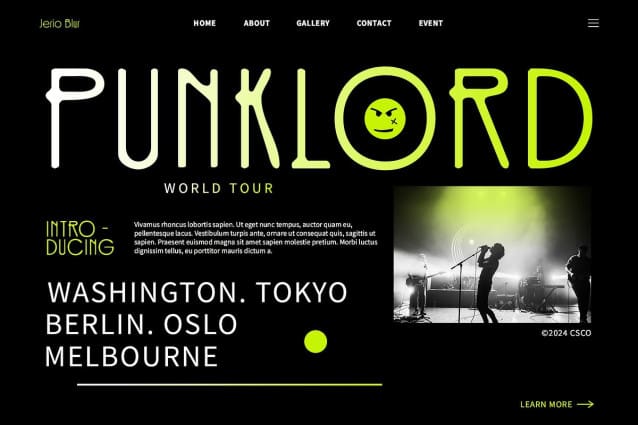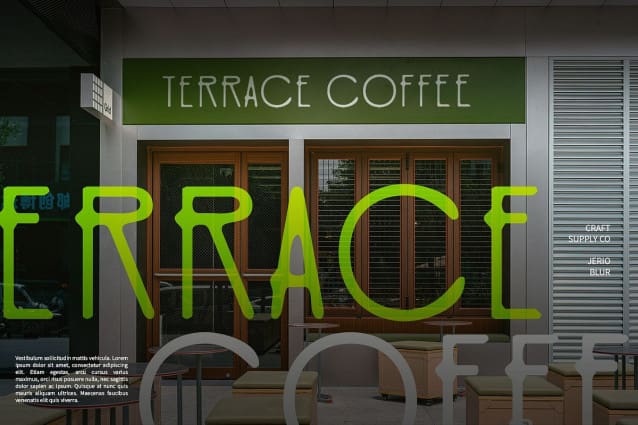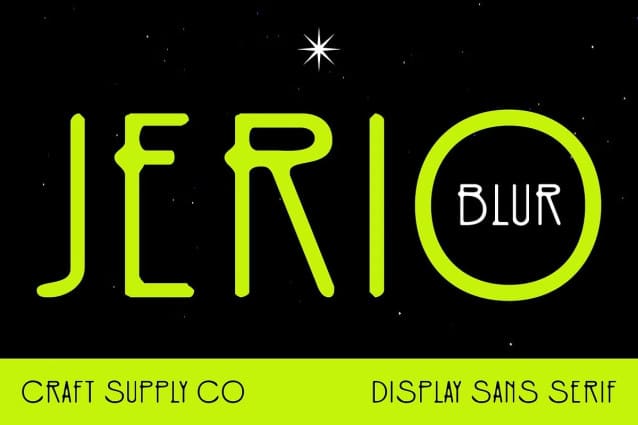
Jerio Blur Font
Jerio Blur Font is a sans serif font with a modern style and a blur effect, perfect for display purposes. Its clean lines and blurred elements create a unique and contemporary look, ideal for posters, branding, and other projects that require a bold statement.
With its sleek design and blurred details, Jerio Blur offers a fresh take on traditional sans serif fonts. The modern style and blur effect create a captivating and dynamic look, perfect for designs that demand attention and convey a sense of modernity and innovation.
Whether you’re designing a website or creating a poster, Jerio Blur is sure to make an impression. Its blur effect and modern style make it perfect for displays that need a touch of contemporary flair.
Despite its distinctive appearance, Jerio Blur is versatile and easy to use. The font works well in both large and small sizes, making it suitable for a variety of applications, from headlines and banners to body text and more. With its blend of modern style and blur effect, Jerio Blur adds a captivating and modern touch to any design.